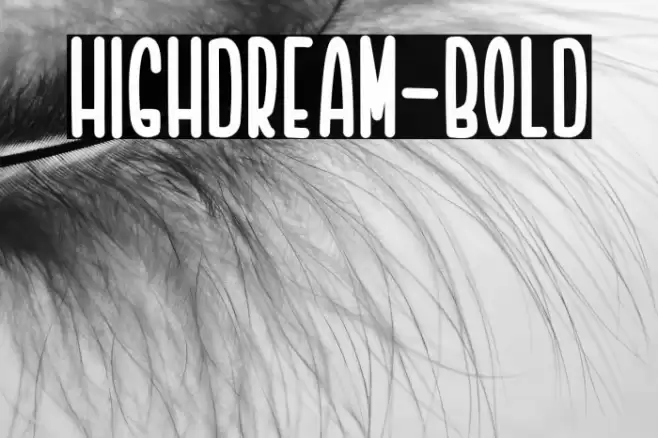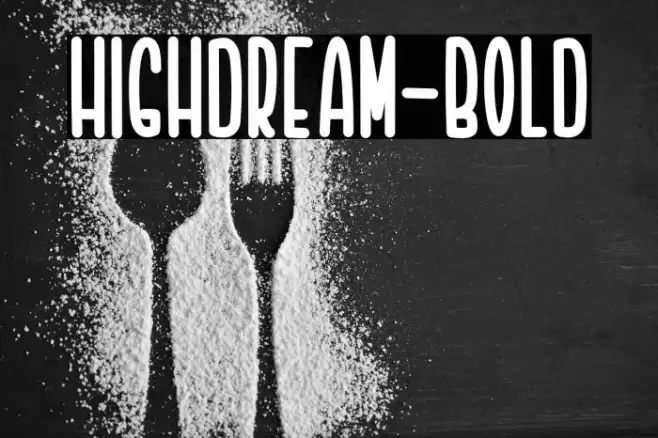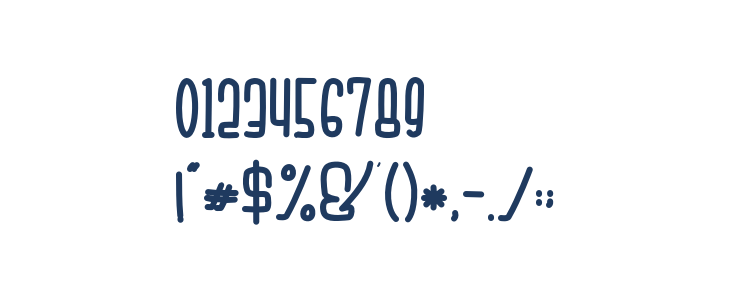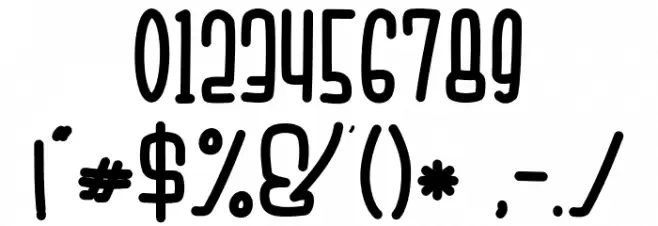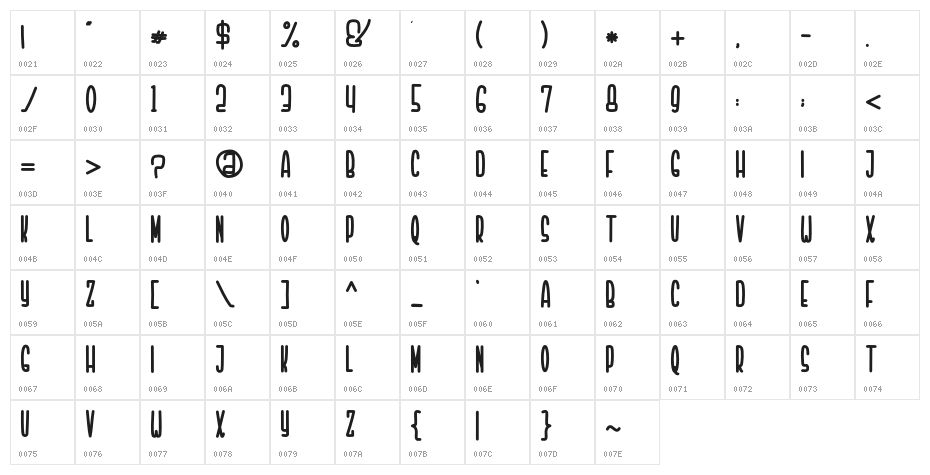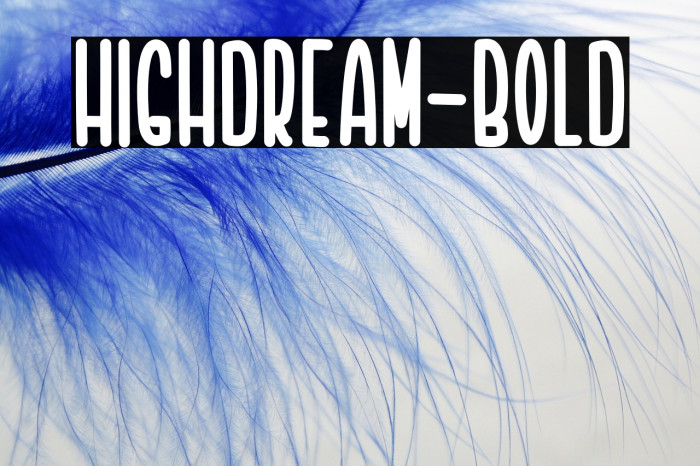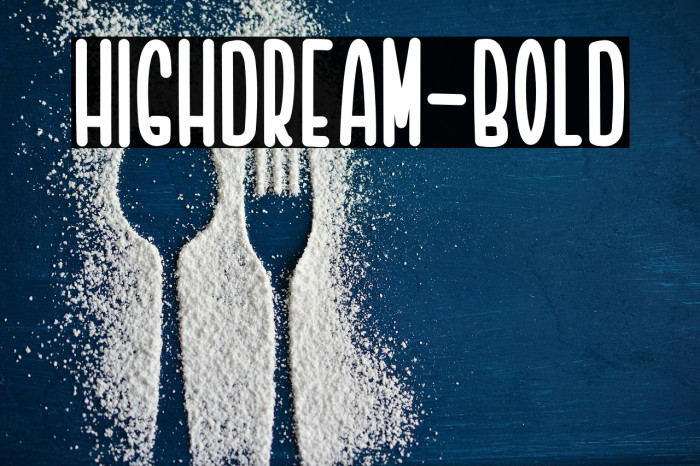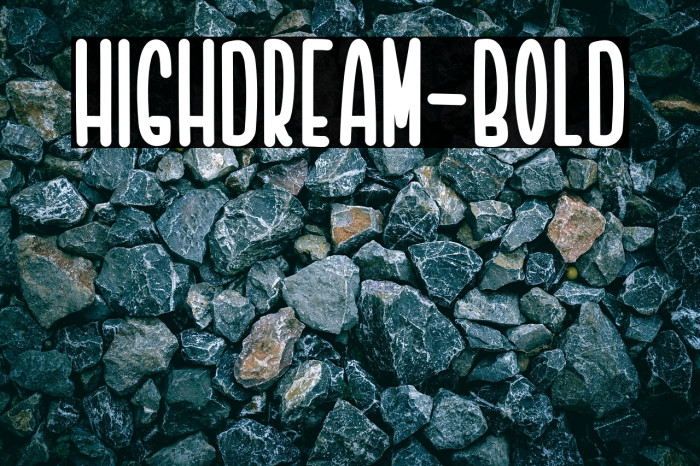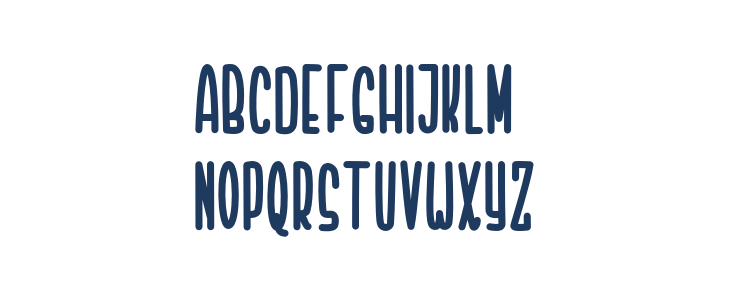
Highdream-Bold Font
Highdream-Bold Description
This font features a bold and playful design with rounded edges and a slightly condensed form. The characters are tall and narrow, giving a modern and energetic feel. The uppercase and lowercase letters maintain a consistent style, with smooth curves and a friendly appearance. The numbers are equally bold, ensuring readability and uniformity across all characters. Special characters are included, each designed to match the overall aesthetic, making this font versatile for various applications.
A bold, playful font with rounded edges and a modern, energetic feel from Regular fonts.